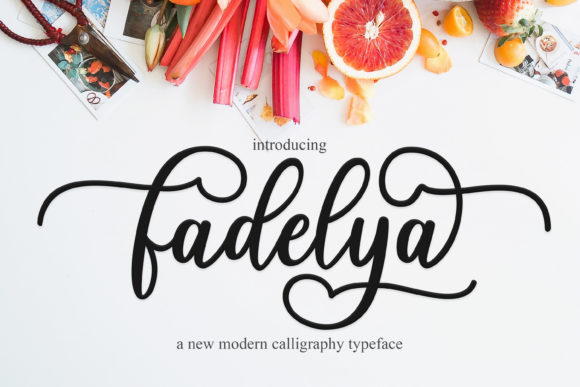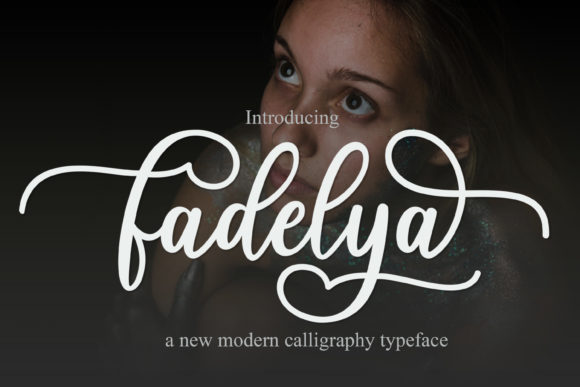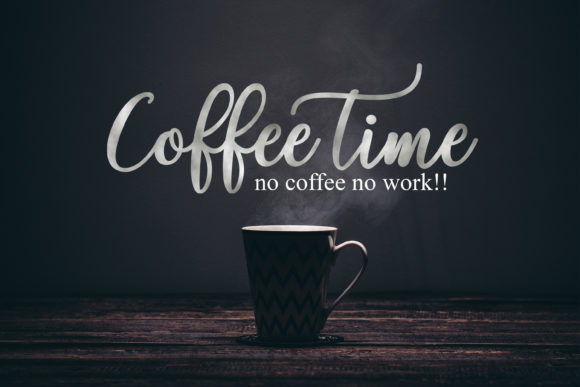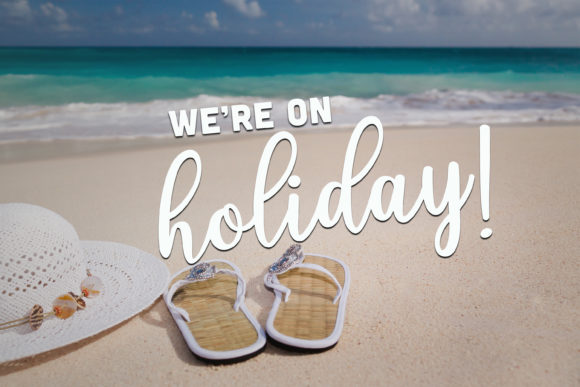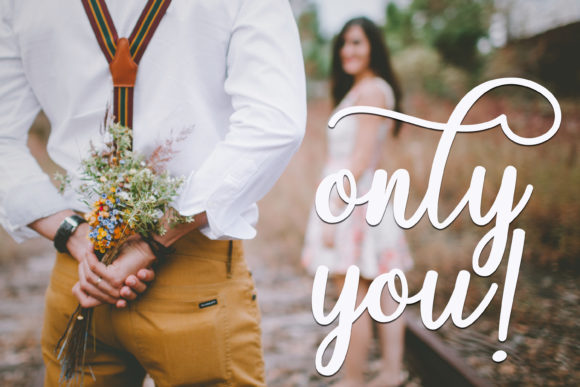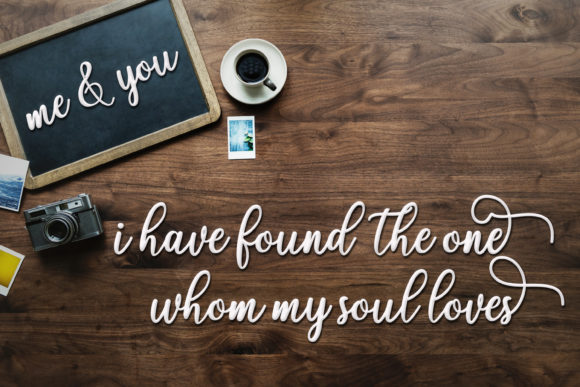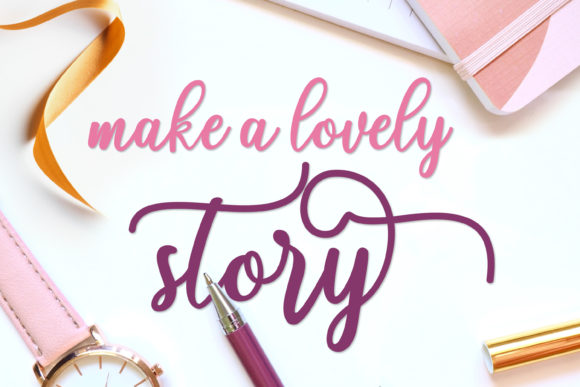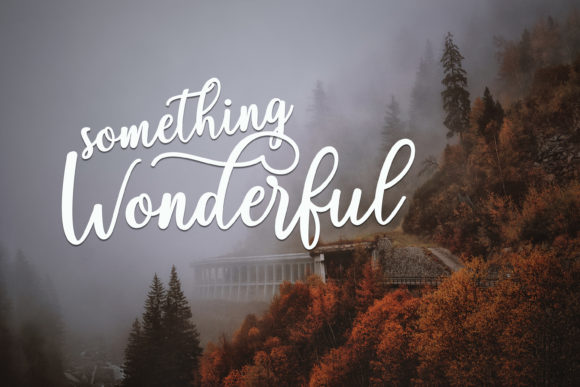
Fadelya Script Font
About Fadelya Script Font
The Fadelya is a modern calligraphy font with a beautiful handwriting style. It’s perfect for branding, wedding invites, magazines, mugs, business cards, quotes, posters, and more!